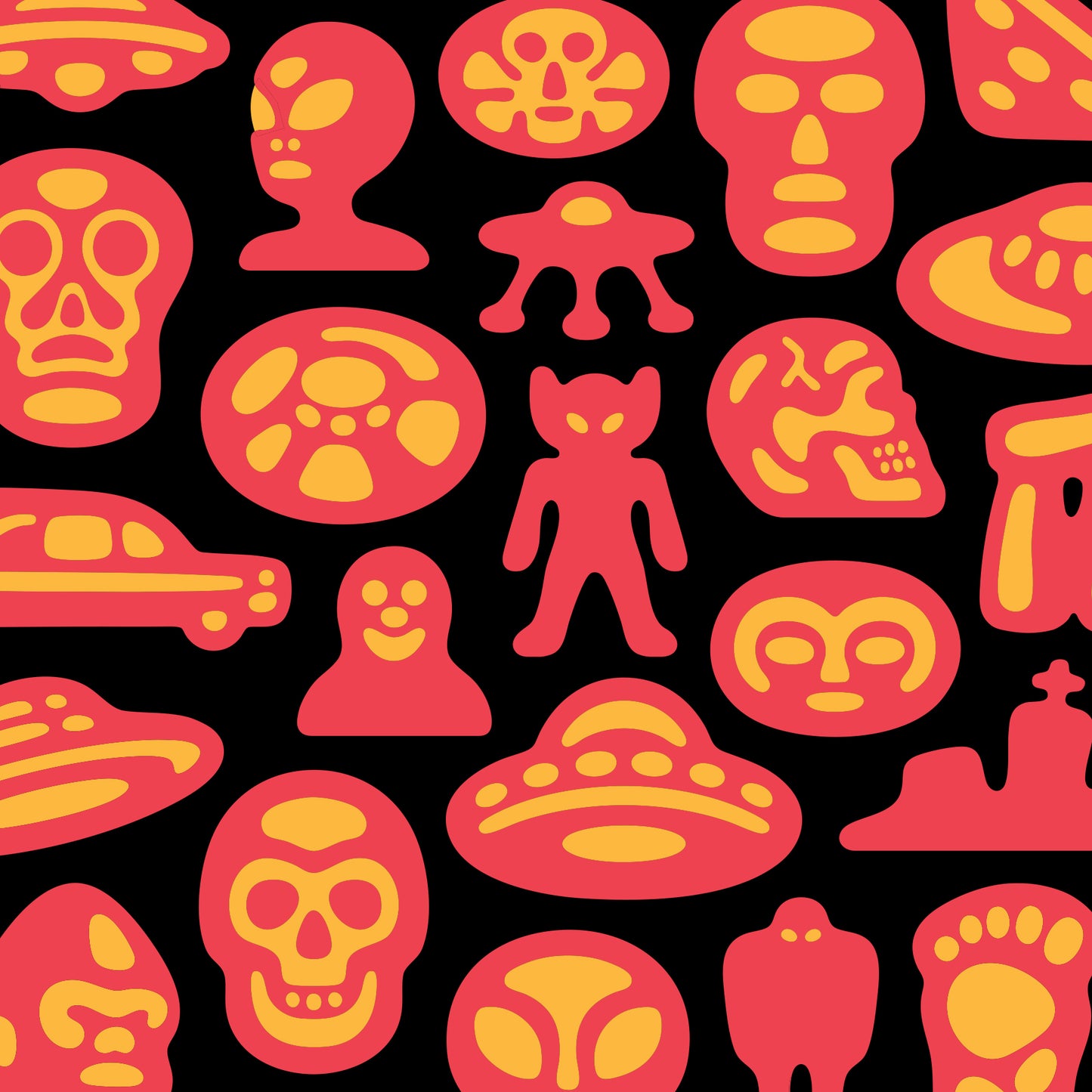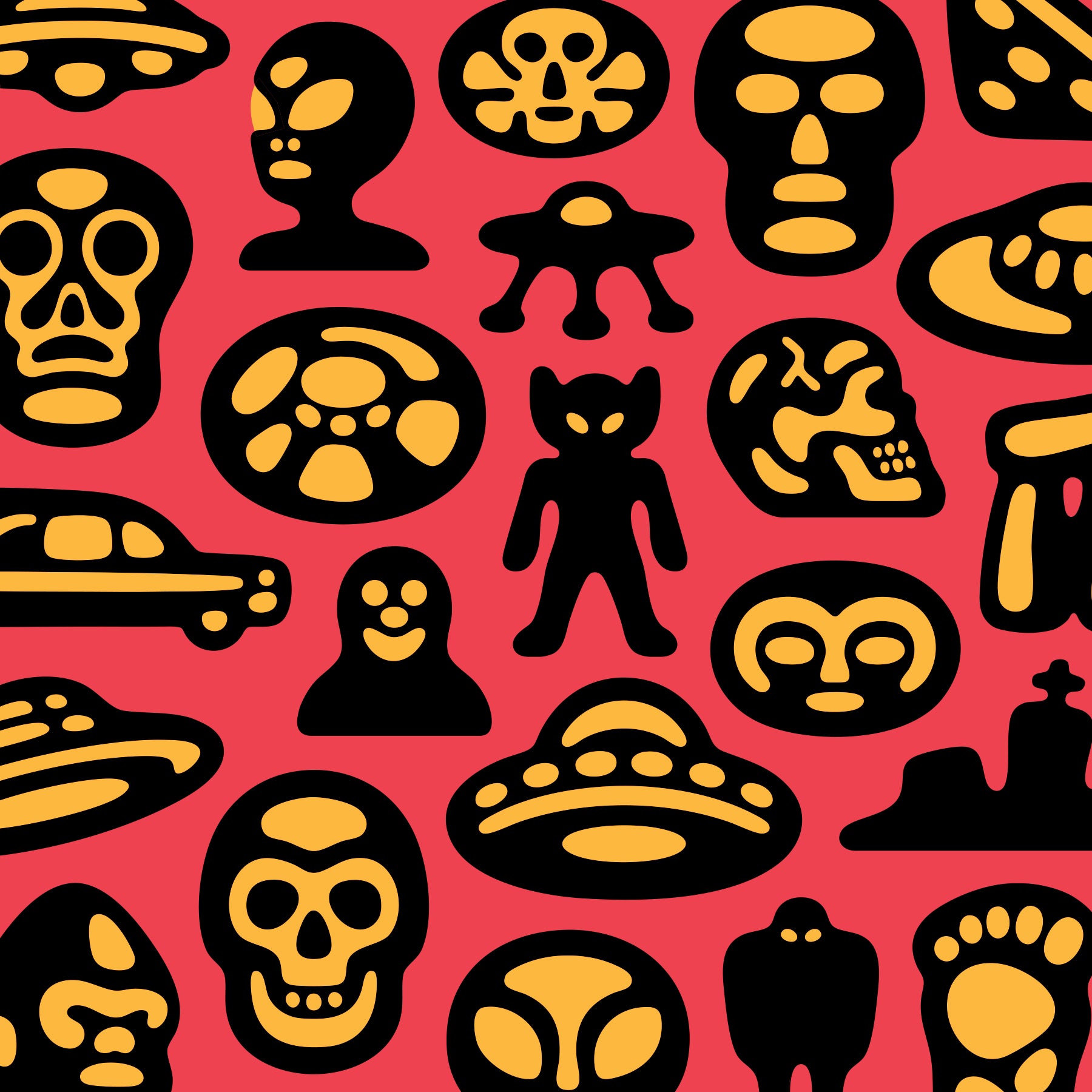
Graveyard Shift Font
36 unique paranormal pictographs pulled directly from the pages of Dustin Williams new art book Graveyard Shift - skulls, aliens, and a few Mothmen for good measure - rendered in scalable vector, ready to grace your next Halloween flyer or paranormal zine.
- Nothing but dingbats